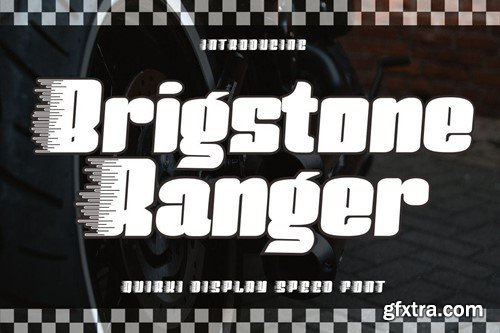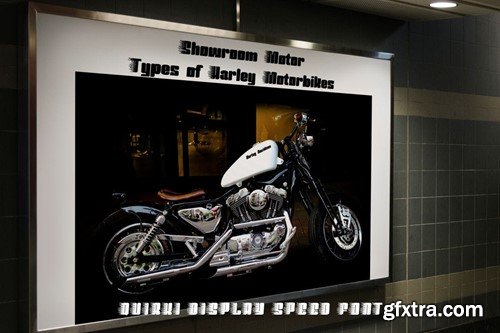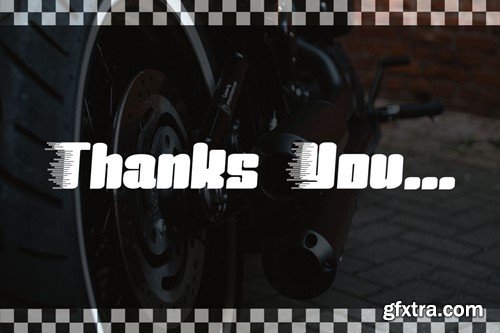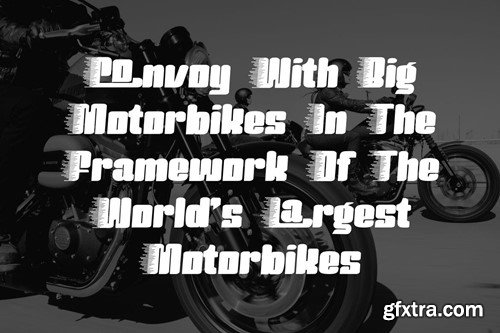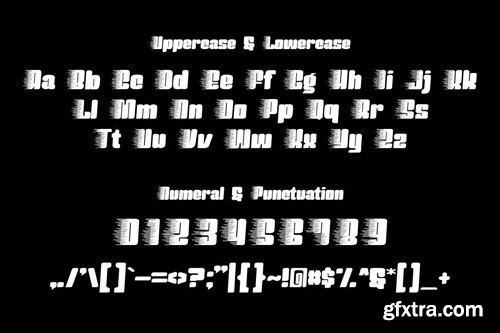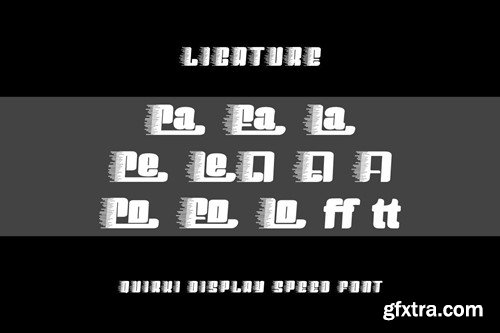
BrigstoneRanger - Quirky Display Speed Font XZX76QF
BrigstoneRanger - Quirky Display Speed Font
Proudly present our new product BrigstoneRanger - Quirky Display Speed Font is a modern and authentic font. Perfect for professional needs and product branding, this font is suitable for any branding project such as quotes, logos, blog headers, posters, ribbons, letters, invitations, stationery, etc... Designed to be versatile and flexible that can be used on a variety of projects and media. extraordinary in a variety of contexts.
Uppercase